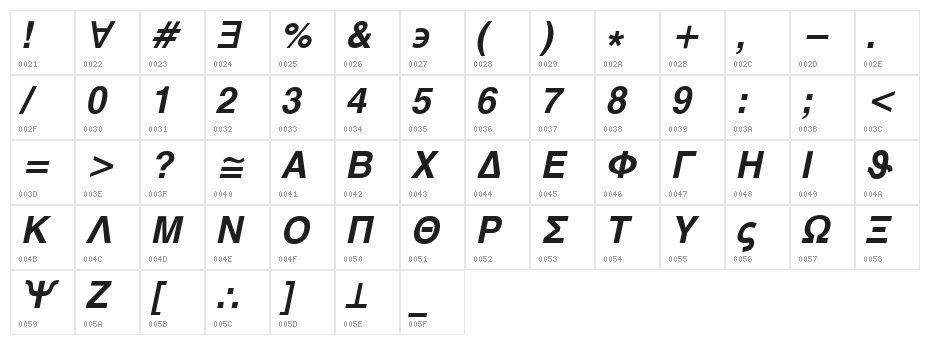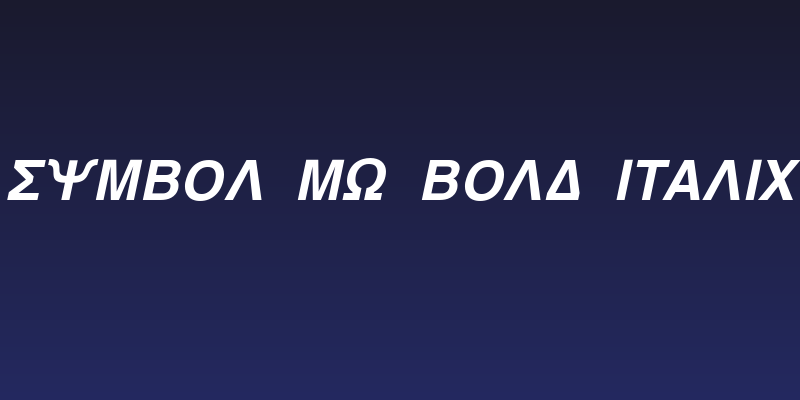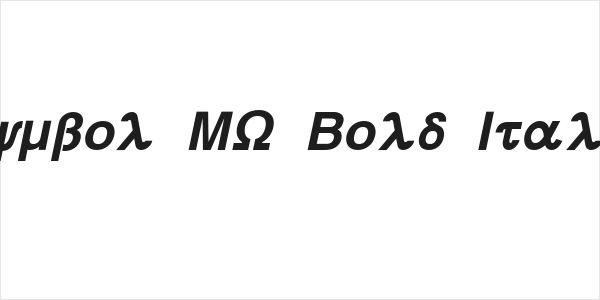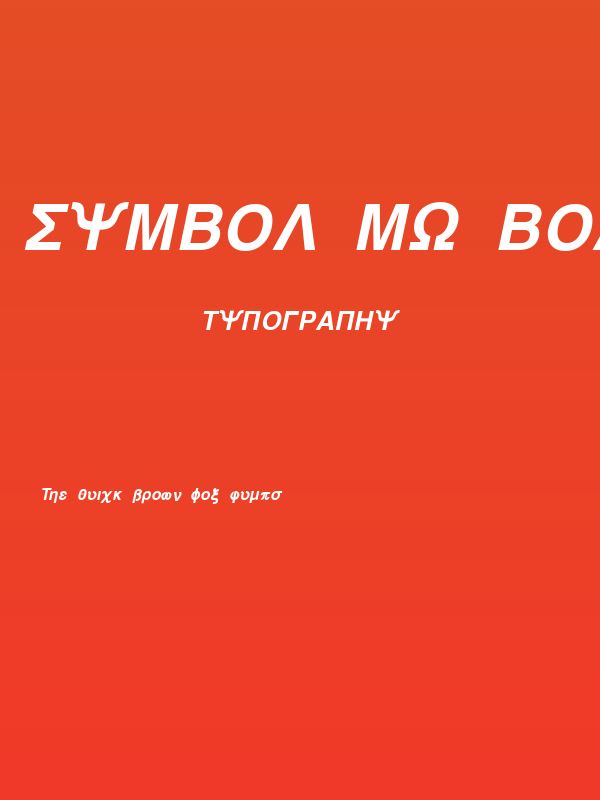
Symbol MW Bold Italic Font
Symbol MW Bold Italic Description
This font features a bold and italicized style, characterized by its strong and dynamic appearance. The letters are slanted, giving a sense of movement and emphasis. The boldness of the strokes adds weight and presence, making it suitable for attention-grabbing designs. The italic angle is consistent across all characters, providing a cohesive look. The font includes a full set of uppercase and lowercase letters, numerals, and a selection of special characters, ensuring versatility in various design applications.
| Proposed Projects | Ideal for headlines, posters, branding materials, and any design requiring a bold statement. |